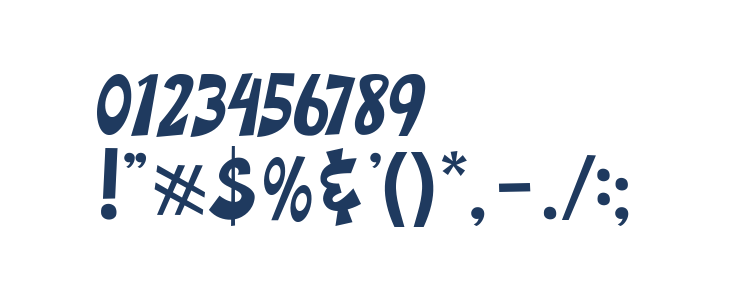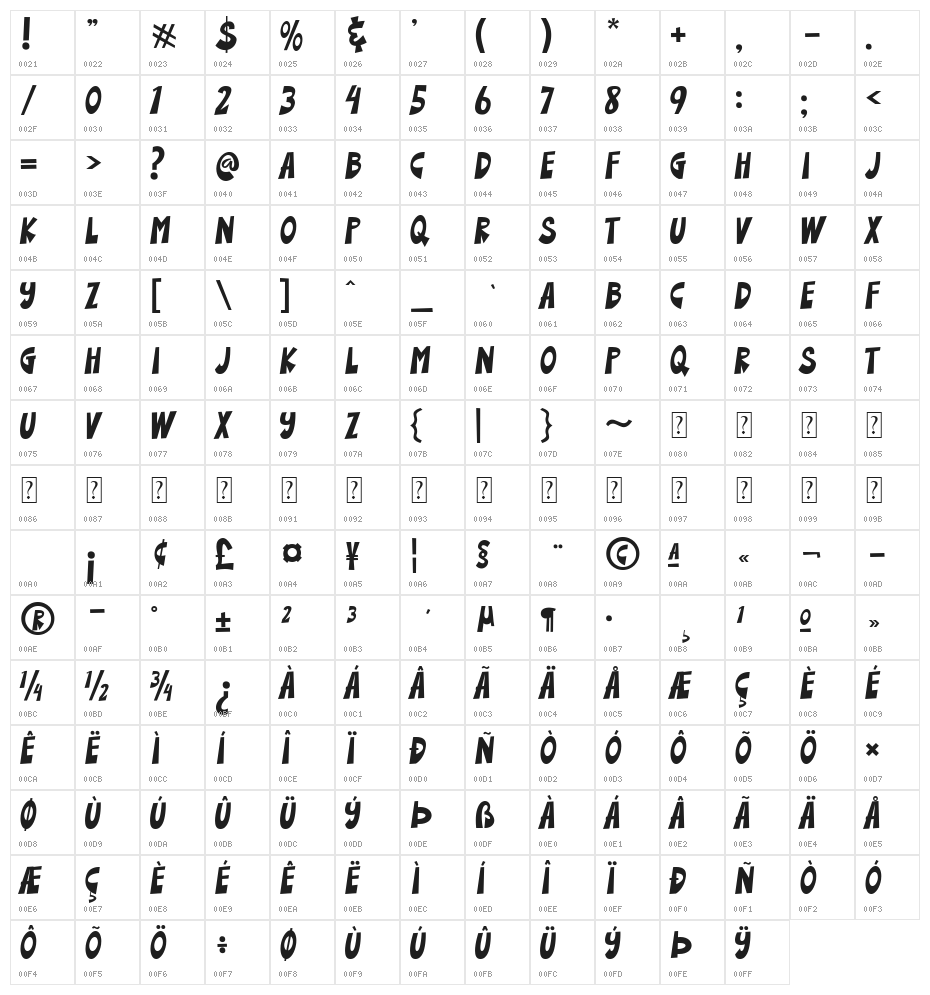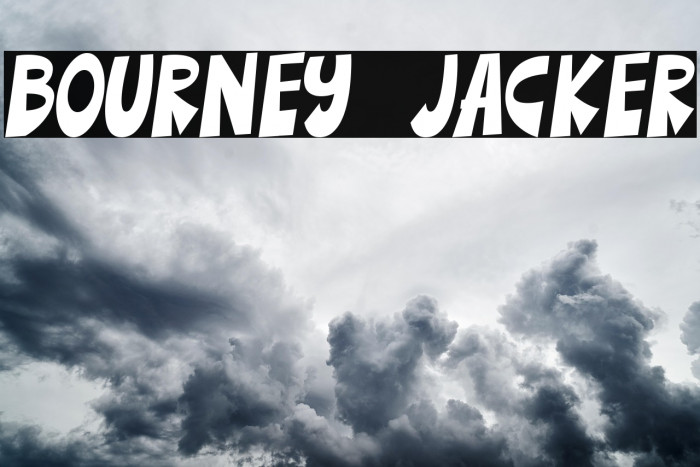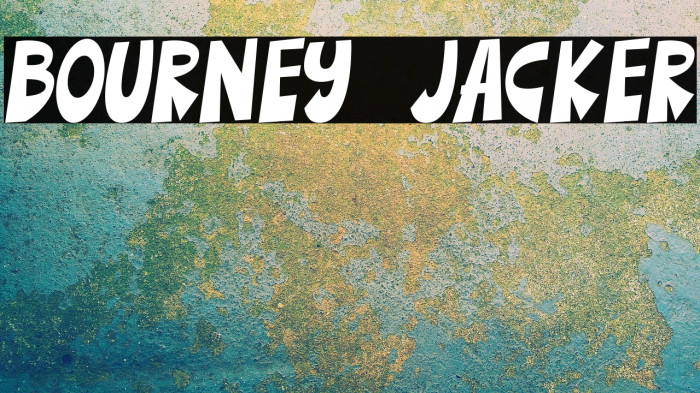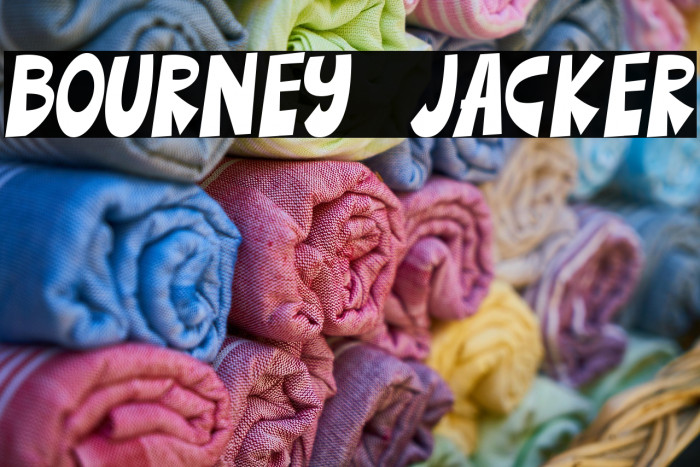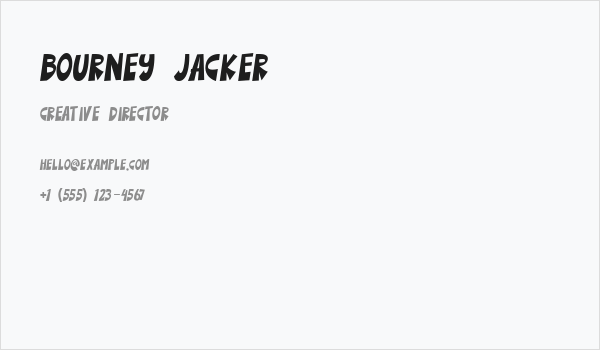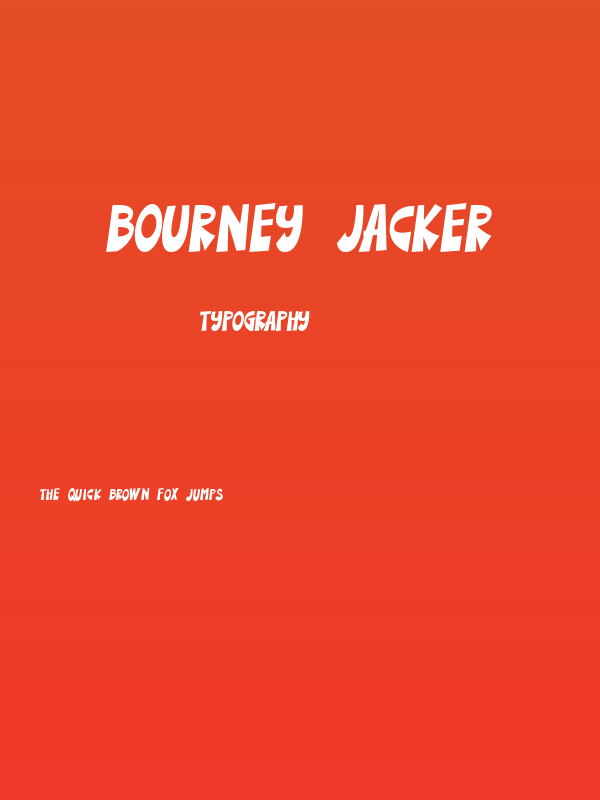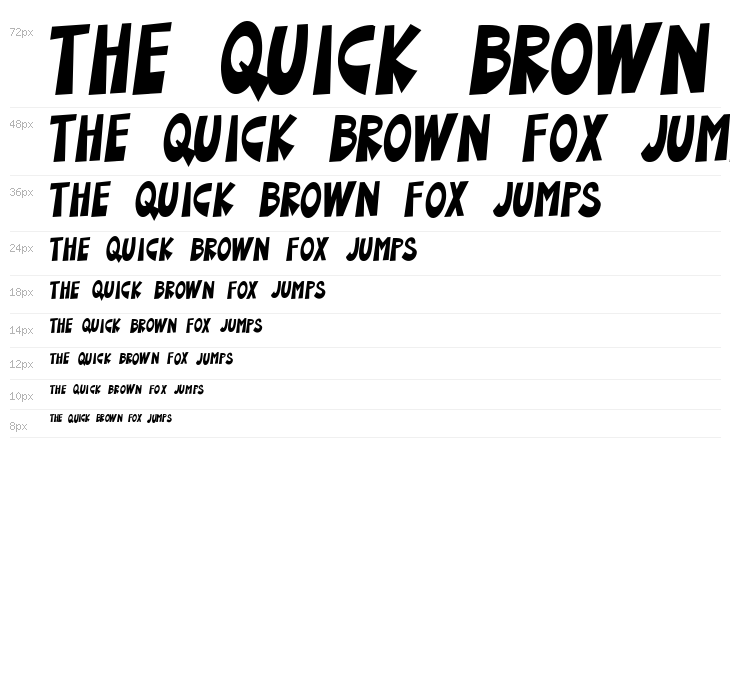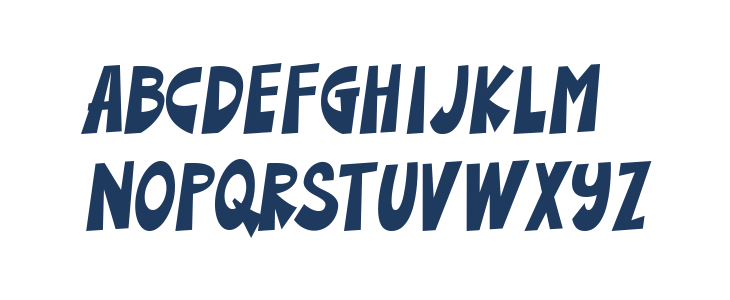
Bourney Jacker Font
Bourney Jacker Description
This font features a bold and dynamic style with a distinct slant, giving it a sense of movement and energy. The characters are thick and slightly condensed, with sharp angles and a playful, cartoonish feel. The uppercase and lowercase letters maintain a consistent style, while the numbers and special characters complement the overall design. This font's unique appearance makes it stand out, perfect for projects that require a lively and engaging typeface.
| Overall Style | Playful, Energetic, Cartoonish |
| Proposed Projects | Ideal for comic books, children's books, playful branding, posters, and advertisements. |